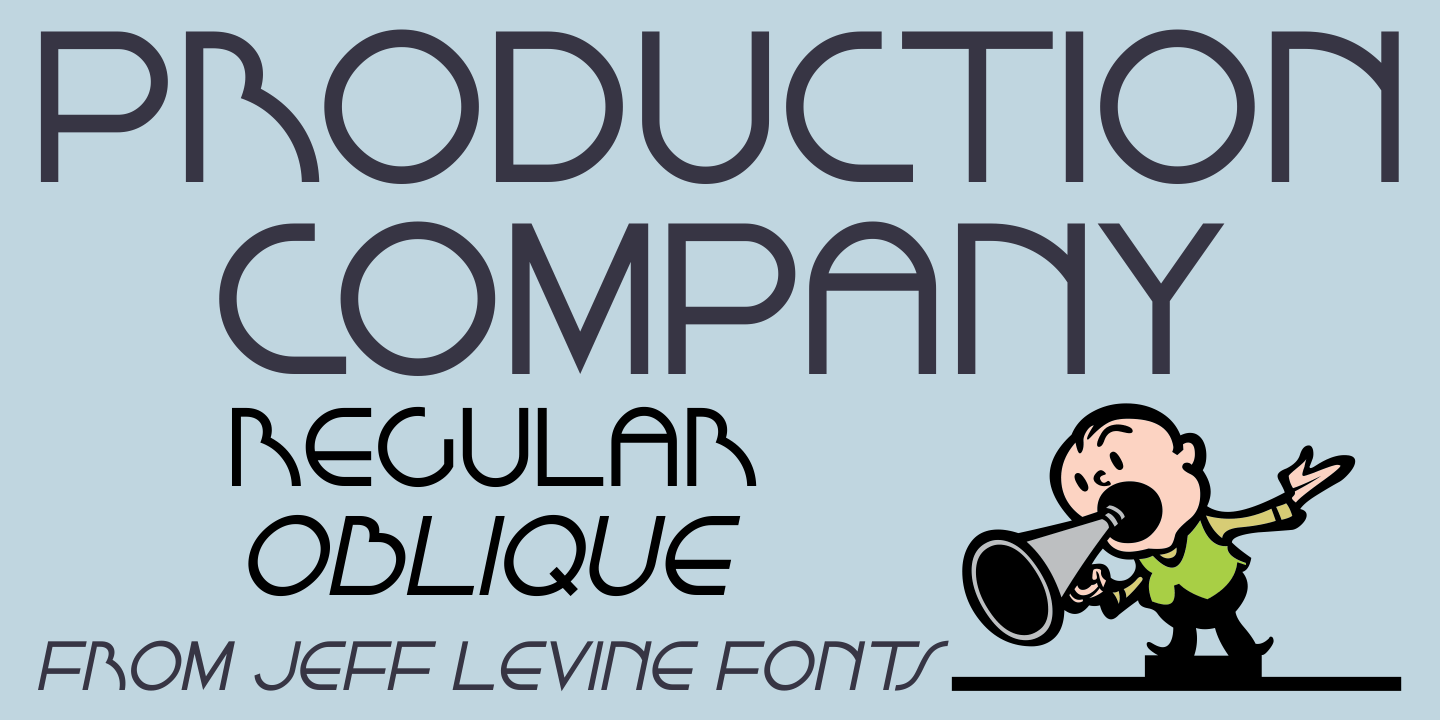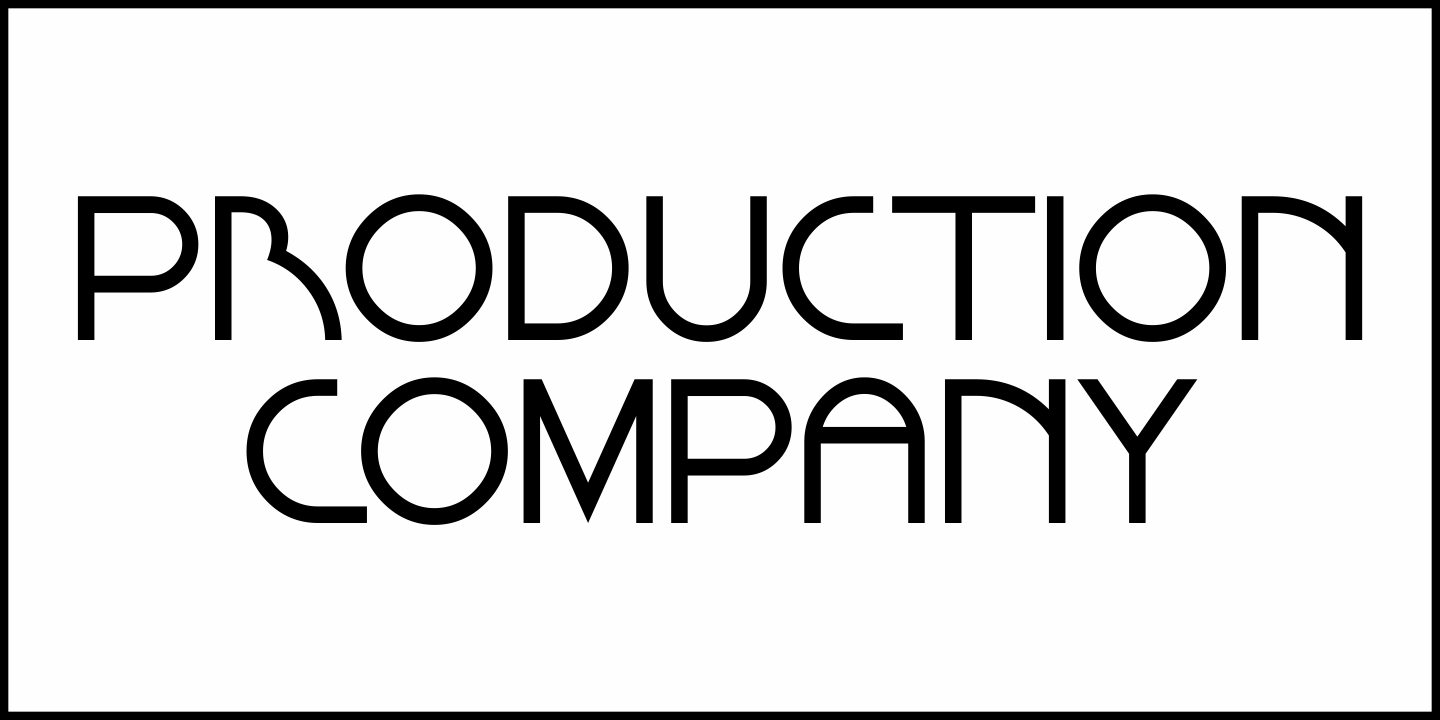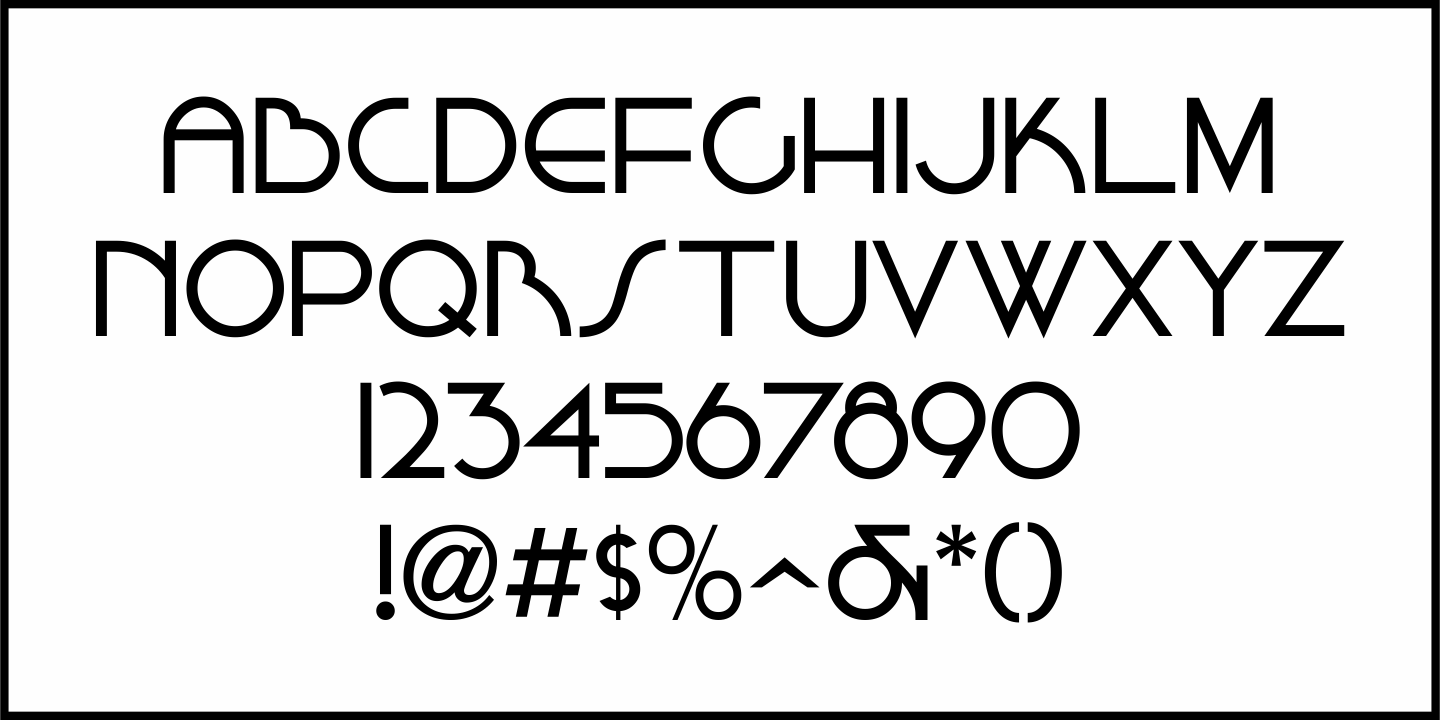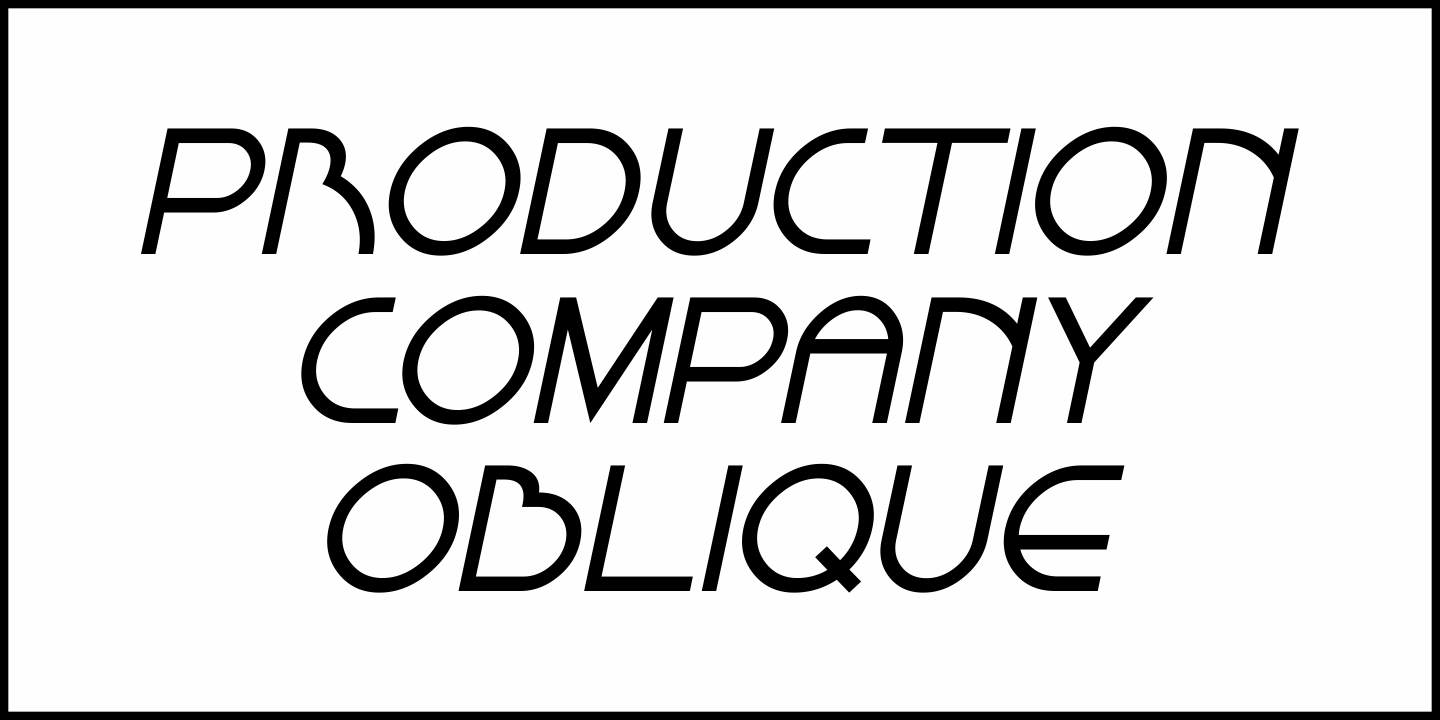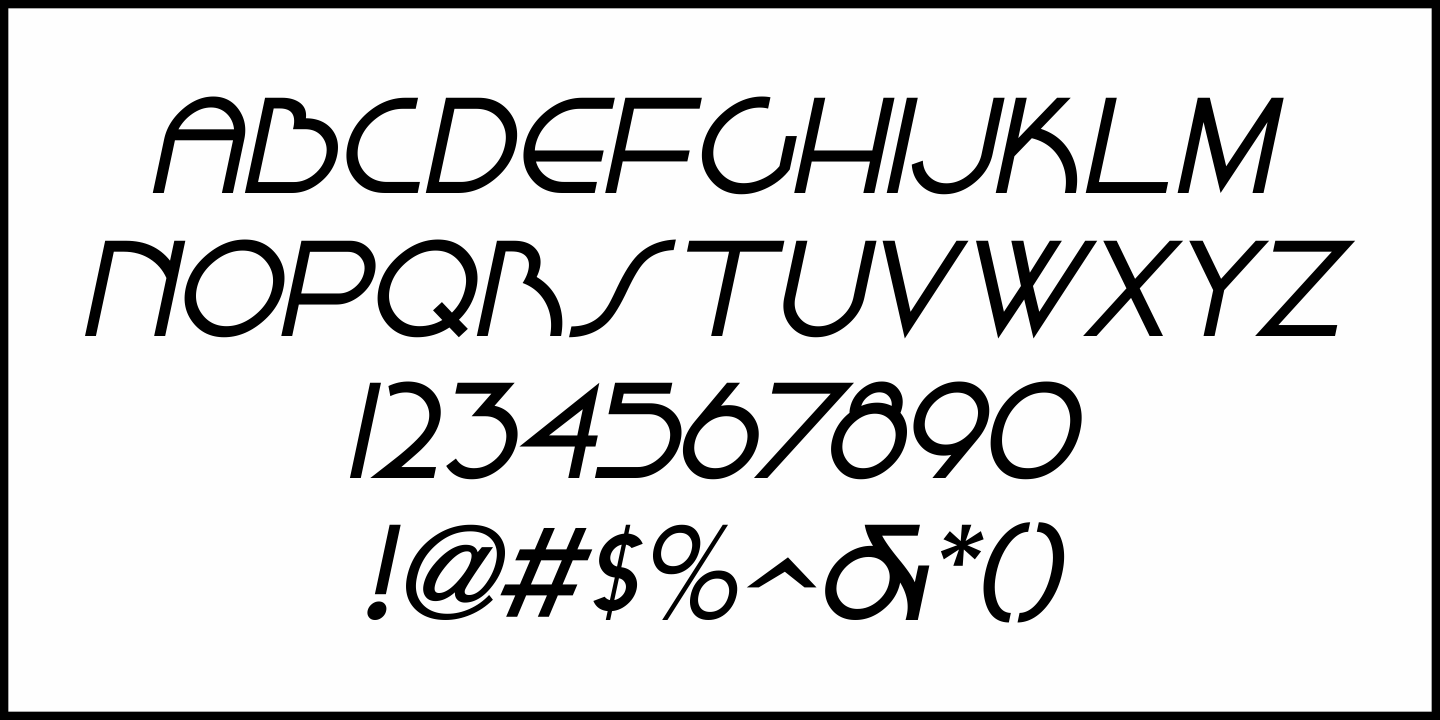
Production Company
While viewing a video posted to YouTube of a 1952 drive through Los Angeles, a building was passed for King Bros. Productions, Inc.
The lettering on the signage was designed in a stylized Art Deco sans serif, and thus inspired Production Company JNL – available in both regular and oblique versions.